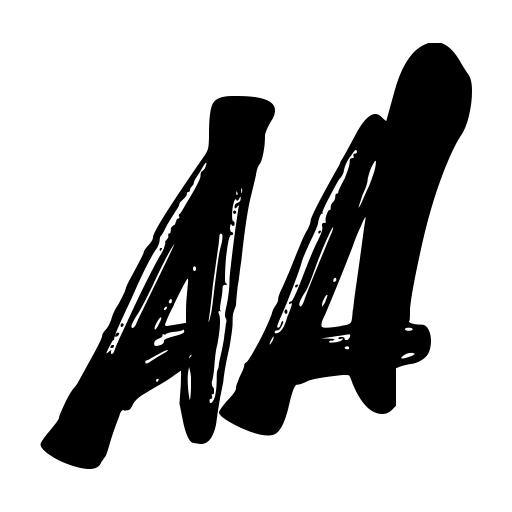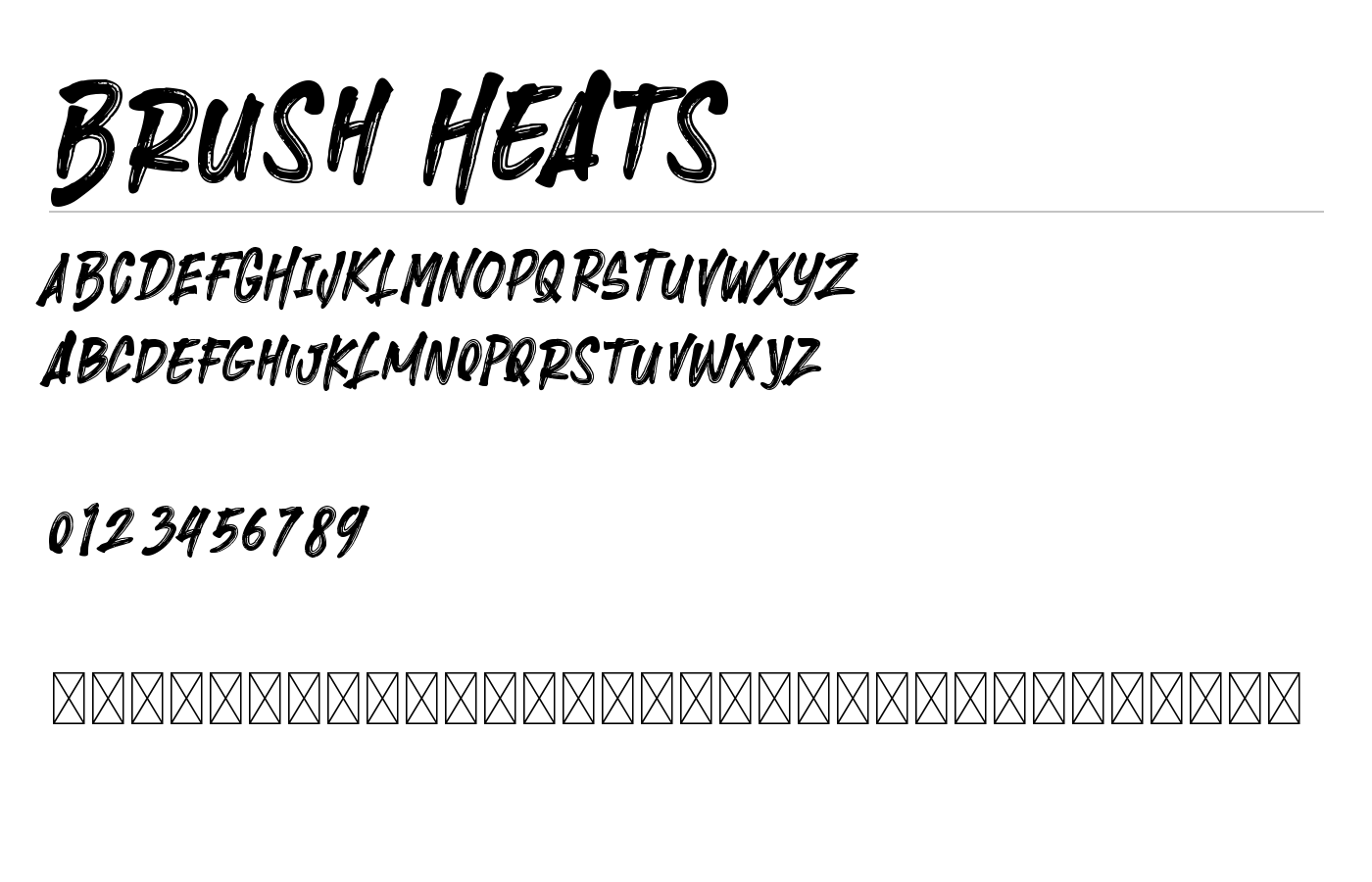
Brush Heats is a dynamic brush script font with a casual, hand-painted feel that captures energy and movement. Its uneven strokes and textured edges give it a lively, artistic personality, making it perfect for creative branding, posters, and expressive headlines where a bold, informal style is needed. This font brings warmth and originality to designs that aim to stand out with a handcrafted touch.
Brush Heats Font
About Brush Heats Font
| Font family | Brush Heats Font |
| Designer | Muhammad Sirojuddin |